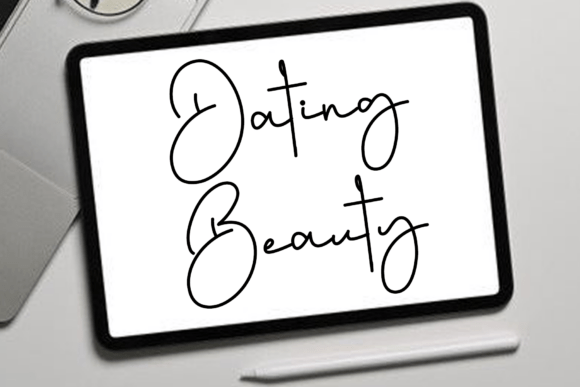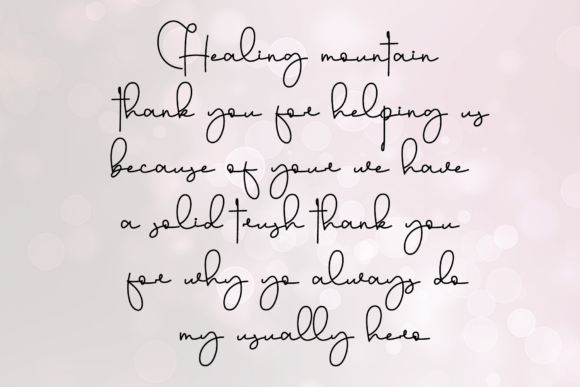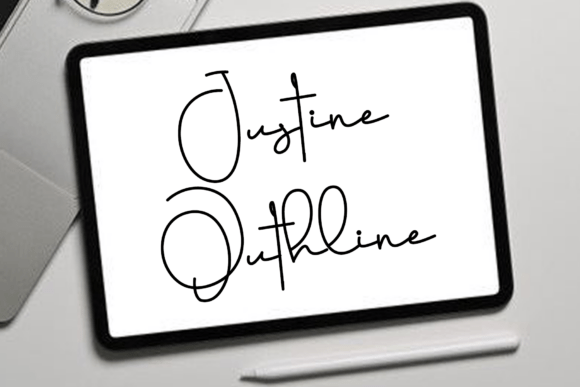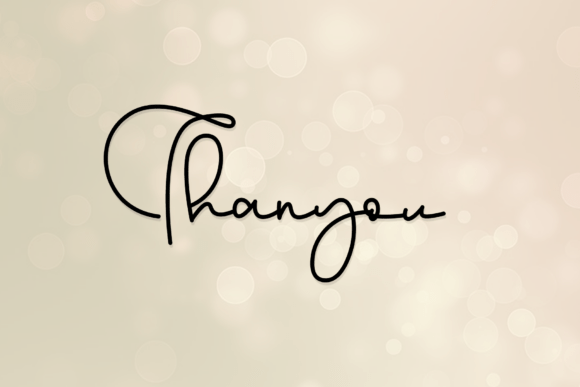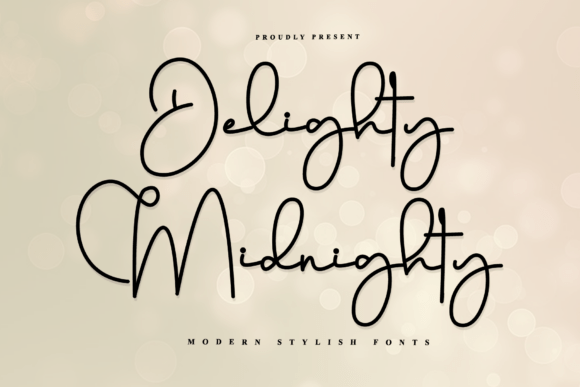
Introducing Delighty Midnighty Font: A Timeless Handwritten Masterpiece
Are you a designer, crafty enthusiast, or simply someone who appreciates the art of typography? Look no further! We’re excited to introduce you to Delighty Midnighty, a lovely and timeless handwritten font that’s sure to elevate your creative projects. In this article, we’ll dive into the world of Delighty Midnighty, exploring its unique features, uses, and benefits.
The Charm of Delighty Midnighty
Delighty Midnighty is a beautifully crafted handwritten font that exudes elegance and sophistication. Its timeless charm makes it an excellent choice for a wide range of design applications, from eye-catching logos and branding to inspiring quotes and creative projects. What sets Delighty Midnighty apart is its unique and beautiful touch – every letter has been carefully crafted to add a personal and distinctive feel to your designs.
Delighty Midnighty is an ideal font for designers and crafters looking to add a touch of personality to their work. Whether you’re creating a logo, branding materials, or social media graphics, this font is sure to make your design come alive. Its versatility and legibility make it perfect for a variety of projects, from digital designs to print materials.
Key Features of Delighty Midnighty
• Unique and Beautiful Touch: Every letter in Delighty Midnighty has a distinctive and beautiful touch, making your designs stand out from the crowd.
• Timeless and Elegant: This font’s timeless charm ensures that your designs will remain stylish and relevant for years to come.
• Handwritten with Love: Delighty Midnighty is a handwritten font, infused with a personal and emotional touch that’s perfect for creating heartfelt and engaging designs.
• Versatile and Legible: This font is designed to be versatile and easy to read, making it perfect for a wide range of design applications.
Use Cases for Delighty Midnighty
Delighty Midnighty is an incredibly versatile font that can be used in a variety of design applications. Here are some ideas to get you started:
• Logo Design: Create a memorable and eye-catching logo for your brand or business using Delighty Midnighty.
• Branding Materials: Use Delighty Midnighty to create consistent and stylish branding materials, such as business cards, letterheads, and brochures.
• Social Media Graphics: Add a personal touch to your social media graphics, such as Instagram posts, Facebook covers, and Twitter headers.
• Quotes and Typography: Create inspiring and visually appealing quotes using Delighty Midnighty, perfect for sharing on social media or displaying in your workspace.
Tips for Using Delighty Midnighty
To get the most out of Delighty Midnighty, here are some tips to keep in mind:
• Experiment with Colors: Delighty Midnighty looks great in a variety of colors, so don’t be afraid to experiment and find the perfect hue for your design.
• Mix and Match: Combine Delighty Midnighty with other fonts to create a unique and visually appealing design.
• Pay Attention to Spacing: Make sure to adjust the spacing between letters and words to ensure your design looks balanced and harmonious.